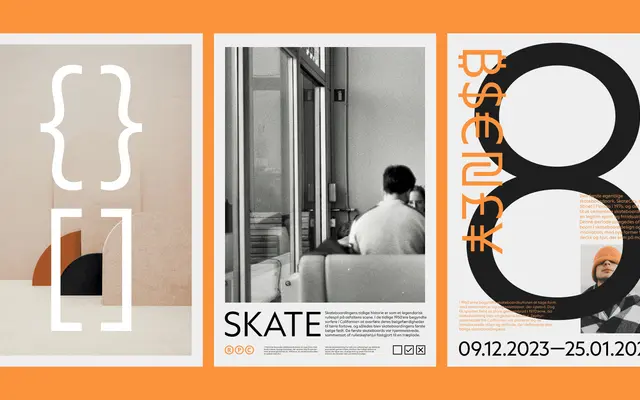
At Quark
At Quark specimen from Arillatype
A geometric sans in nine weights with a dedicated Retina cut and variable font support across weight and italic axes, designed by Andy Lethbridge and released in 2023.
Eighteen styles run from the hairline Air through to Black, each paired with an italic, and a dedicated Retina weight is tuned for high-density screens. The family ships as both static OTF and a variable font with weight and italic axes, the latter included with a full-family purchase. OpenType features extend to circled and boxed numbers, directional arrows, alternate ampersands and a double-storey 'a' swap, giving it practical utility in UI and data contexts.
Clean geometric construction with circular forms and rigorous proportions places this firmly in the geometric sans tradition, with a dedicated Retina cut indicating screen-optimised optical sizing thinking.